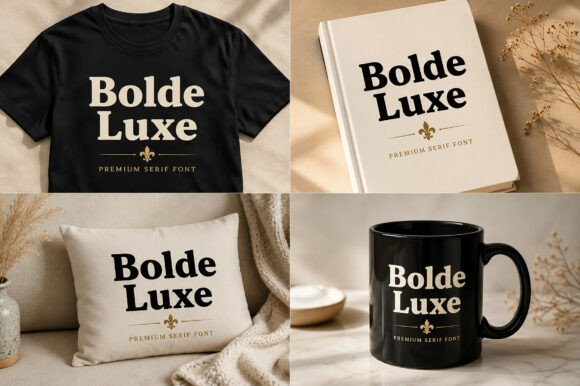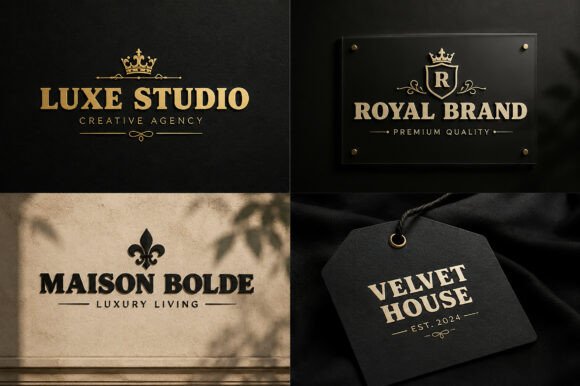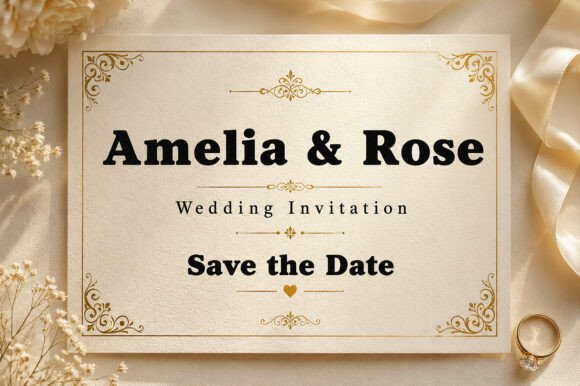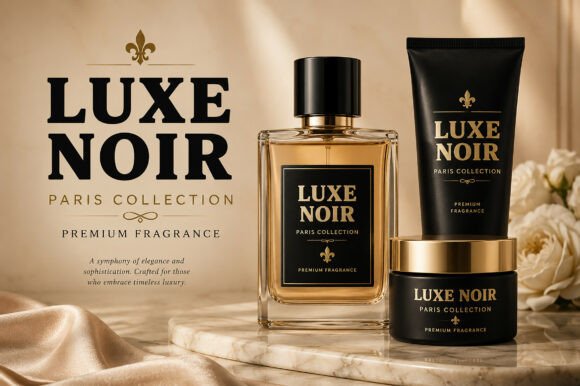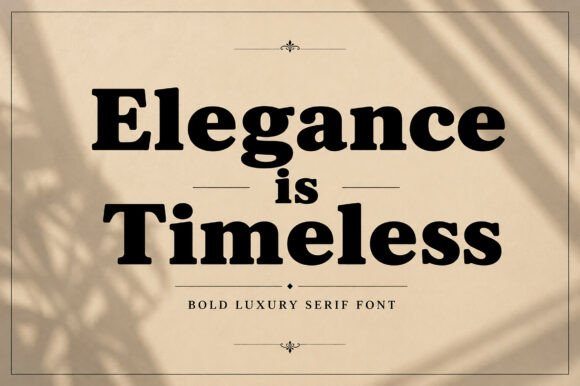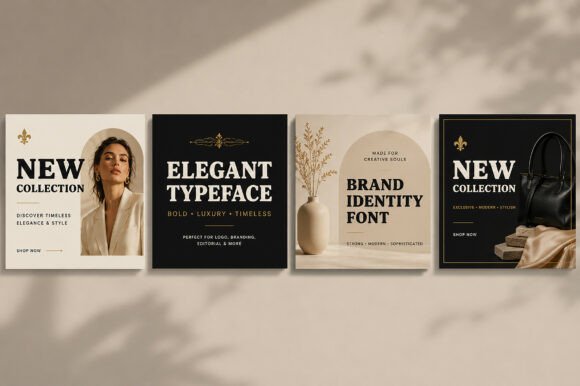
Introducing Bolde Luxe: The Epitome of Sophistication in Serif Fonts
In the realm of typography, few fonts manage to convey the essence of luxury and sophistication as effectively as Bolde Luxe. This stunning serif font is designed to leave a lasting impression, boasting a bold architecture that commands attention while maintaining an air of elegance and readability. Whether you’re a designer, craftsperson, or simply someone who appreciates the finer things in life, Bolde Luxe is an exceptional choice for projects that demand a touch of opulence.
The Perfect Blend of Boldness and Refined Style
Bolde Luxe’s bold-serif design makes it an ideal candidate for a wide range of applications, from high-end logos and fashion branding to editorial layouts, packaging designs, and more. Its robust visual authority is balanced by a graceful style that ensures the font remains approachable and easy to read. This harmonious blend of form and function makes Bolde Luxe a versatile tool for creatives seeking to elevate their projects.
Endless Applications for Bolde Luxe
The versatility of Bolde Luxe knows no bounds. Here are just a few examples of how this exceptional font can be used to add a touch of class to your designs:
- Chic Logos: Create a lasting impression with a bold, luxurious logo that sets your brand apart.
- Fashion Branding: Convey the essence of high-end fashion with a font that exudes sophistication and style.
- Smart Editorial Layouts: Elevate your editorial designs with a font that commands attention and maintains readability.
- Artful Packaging Designs: Add a touch of luxury to your product packaging and make it stand out on store shelves.
- Elegant Beauty Products: Create stunning labels and branding for beauty products that demand a high-end aesthetic.
- Posh Invites: Make a statement with wedding invitations, event invites, and other correspondence that demands a touch of elegance.
- Gripping Social Media Graphics: Capture your audience’s attention with bold, eye-catching social media graphics.
- Plush Merchandise: Add a touch of luxury to your merchandise, from high-end apparel to exclusive accessories.
Effortless Elegance for Designers and Crafters
Bolde Luxe is designed to be user-friendly, making it accessible to designers and crafters of all skill levels. Whether you’re creating a luxury brand image, fashion-related logos, eye-catching editorial headlines, sophisticated beauty packaging, enchanting wedding invitations, quirky boutique branding, engaging social media designs, unique merchandise, or stand-out product labels, Bolde Luxe effortlessly adds a touch of class to your projects.
Why Choose Bolde Luxe?
With so many fonts available, why choose Bolde Luxe? Here are just a few compelling reasons:
- Unforgettable Sophistication: Bolde Luxe’s unique blend of boldness and refined style makes it an unforgettable addition to any design.
- Exceptional Versatility: From logos and branding to editorial layouts and packaging designs, Bolde Luxe is an incredibly versatile font.
- Ease of Use: Bolde Luxe is designed to be user-friendly, making it accessible to designers and crafters of all skill levels.
- High-End Aesthetic: Bolde Luxe’s luxurious style makes it perfect for projects that demand a high-end aesthetic.
In conclusion, Bolde Luxe is an exceptional serif font that embodies the essence of luxury and sophistication. Its bold architecture, refined style, and exceptional versatility make it an ideal choice for designers and crafters seeking to elevate their projects. Whether you’re creating a luxury brand image, fashion-related logos, or eye-catching editorial headlines, Bolde Luxe is the perfect tool to add a touch of class and sophistication to your designs.